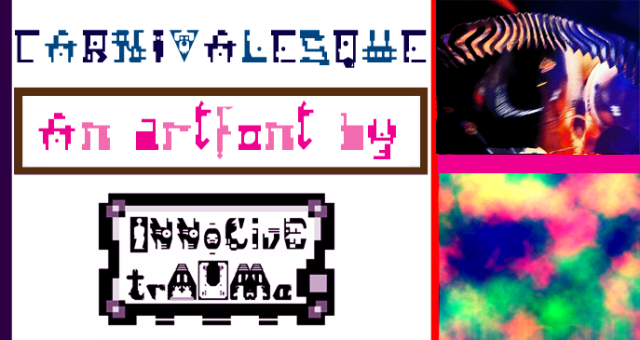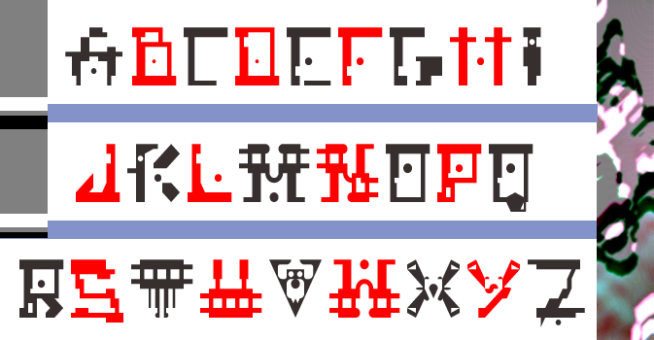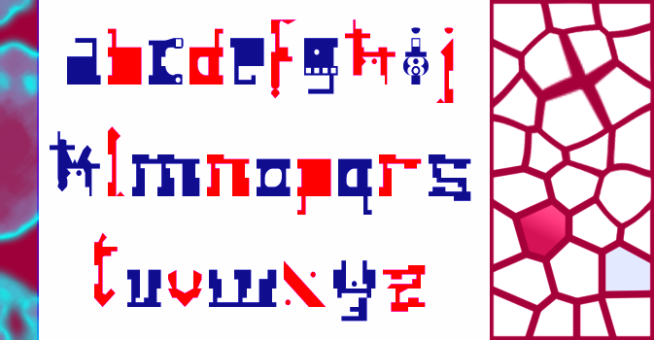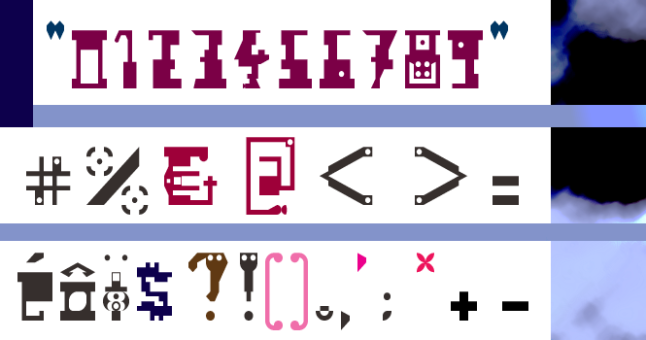
trAUMa 23 / Carnivalesque
"Carnivalesque", like all the "trAUMa" series, works at the frontier between Art & Type Design, Figuration & Abstraction, each font is a comprehensive world in which every glyph is a "living" entity. But put together they can produce your messages in the most accurate way.